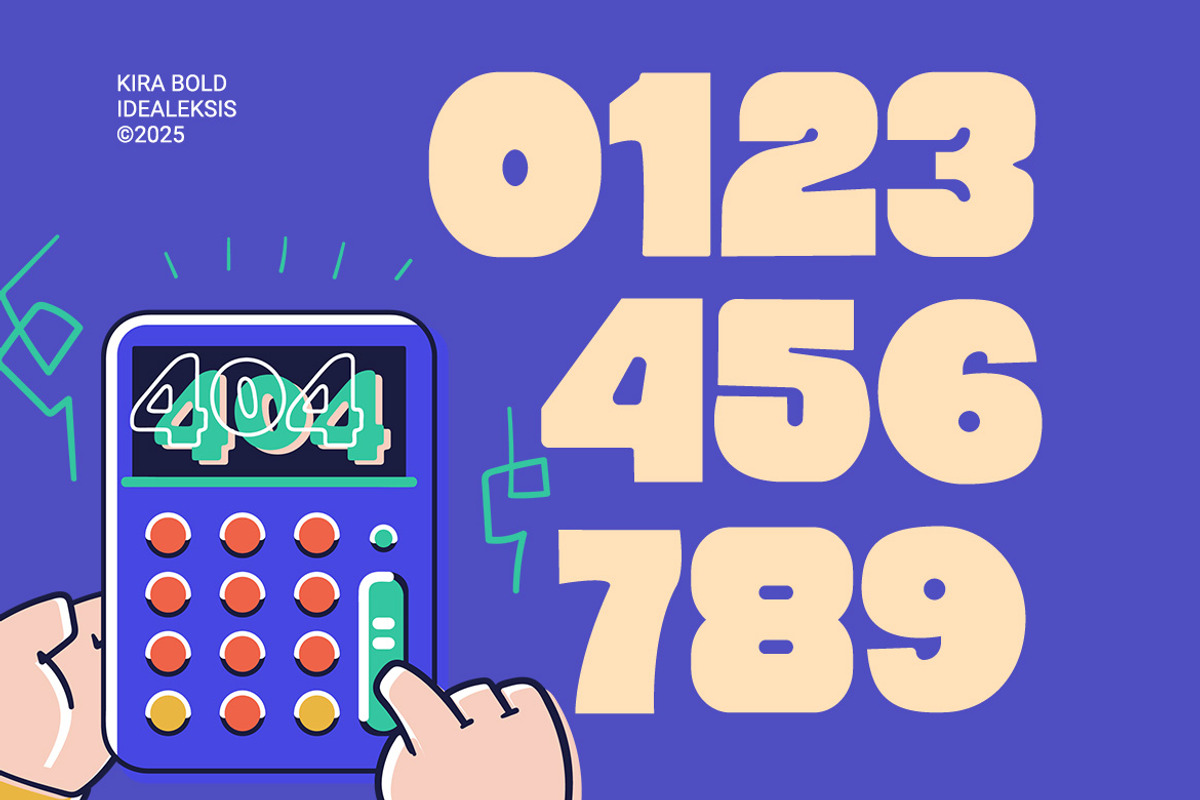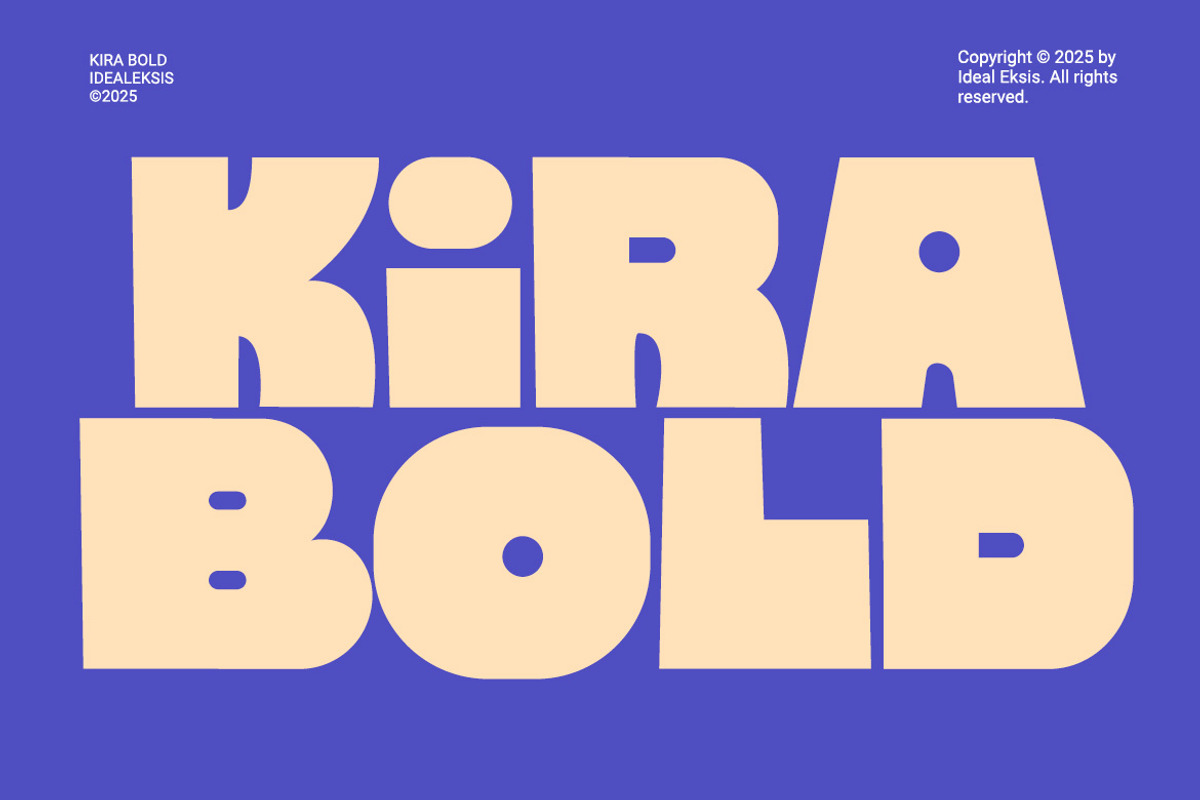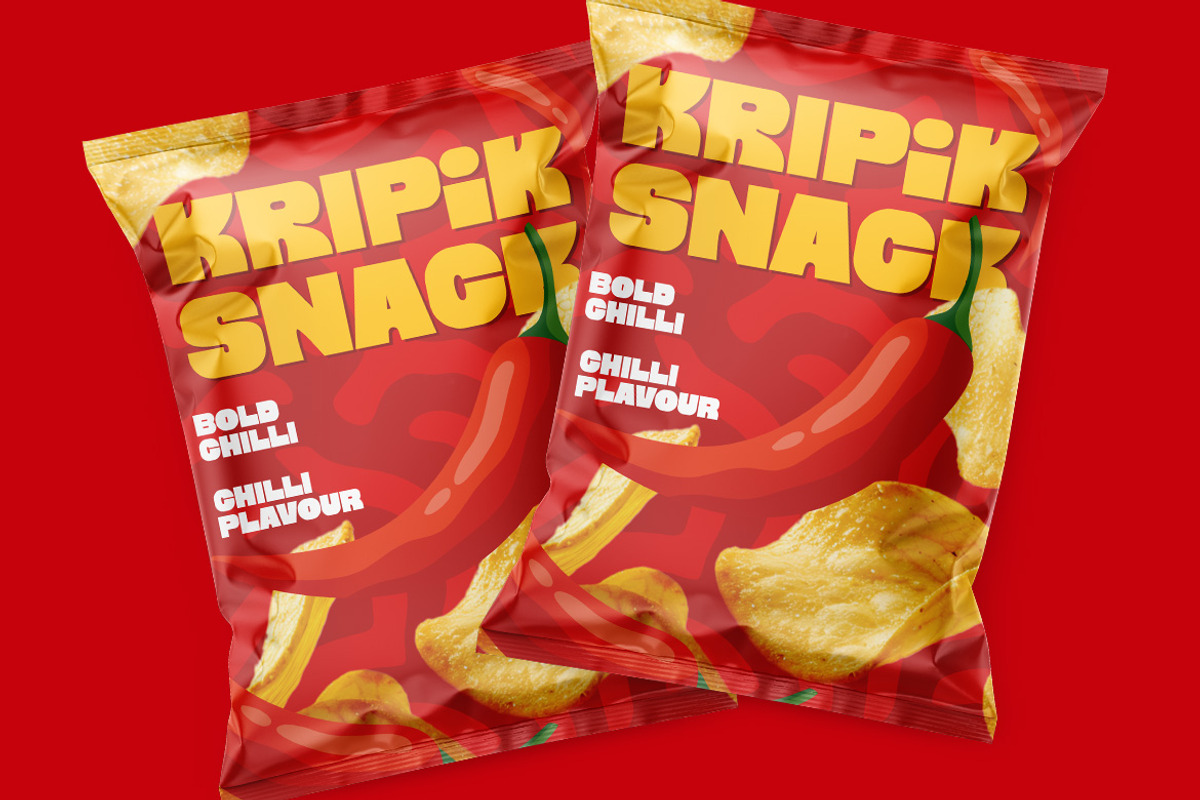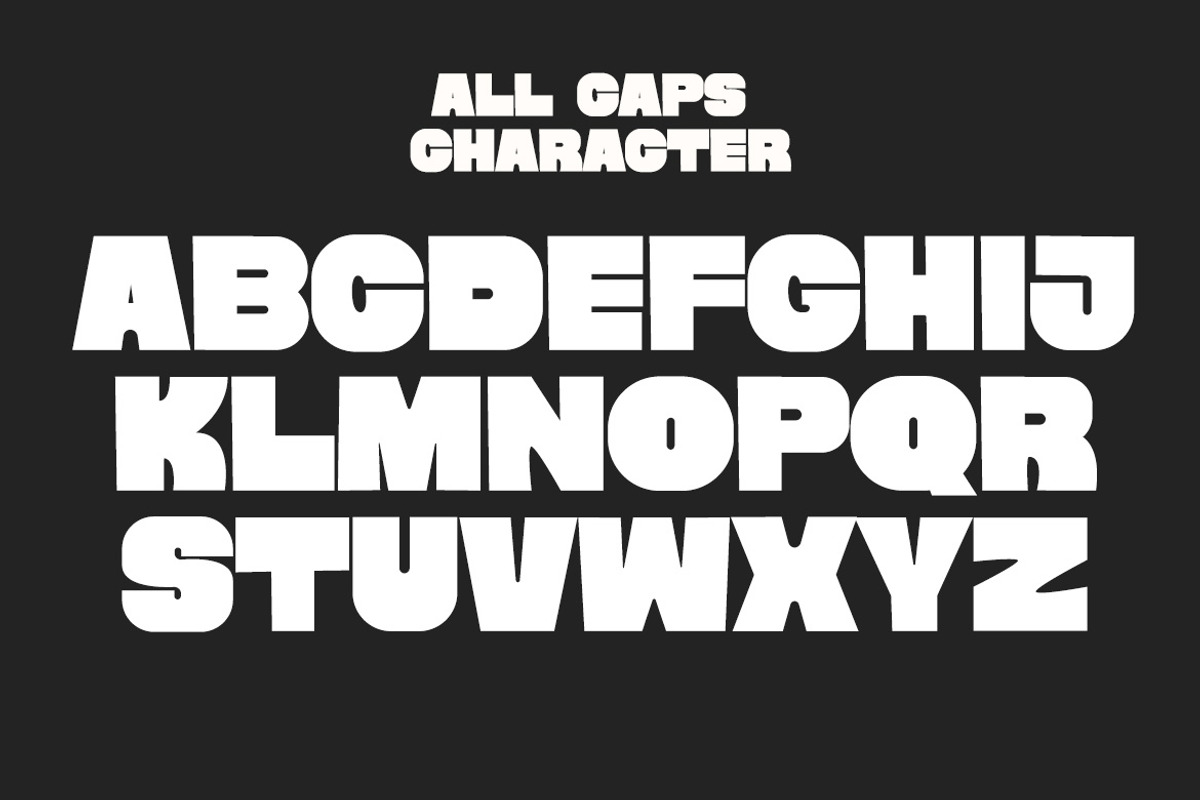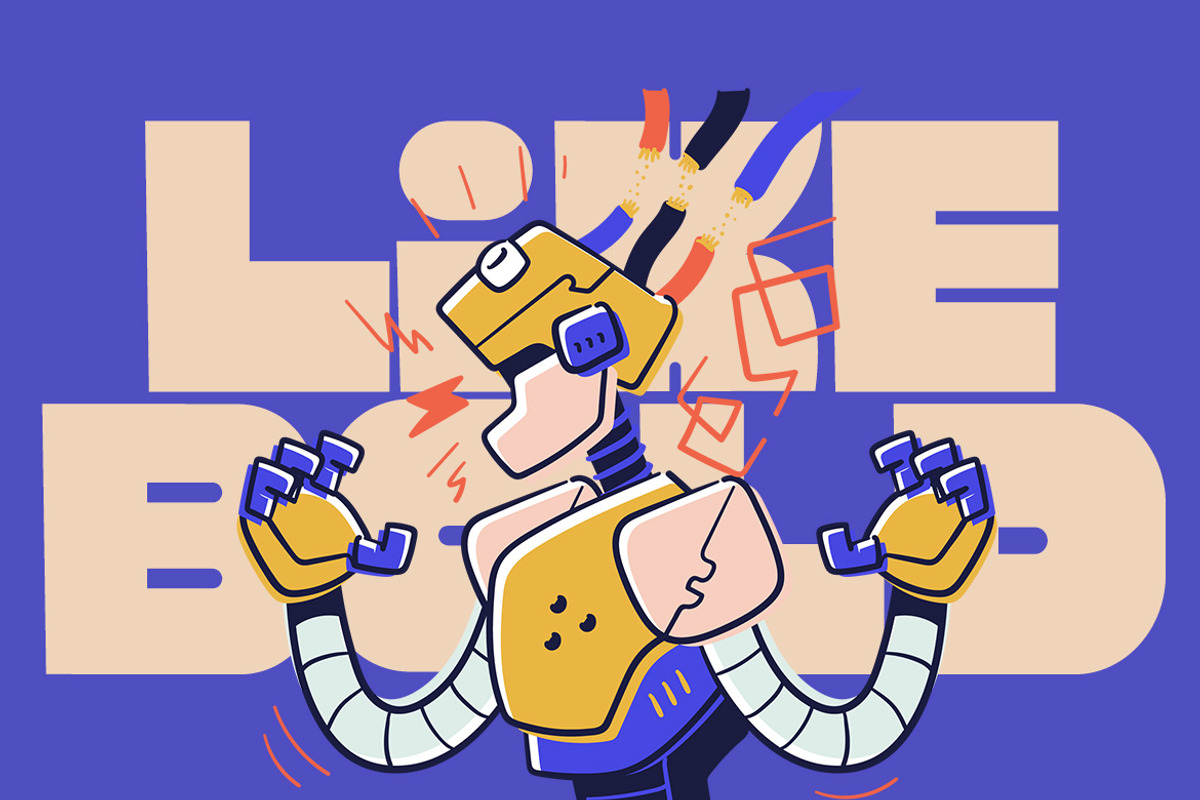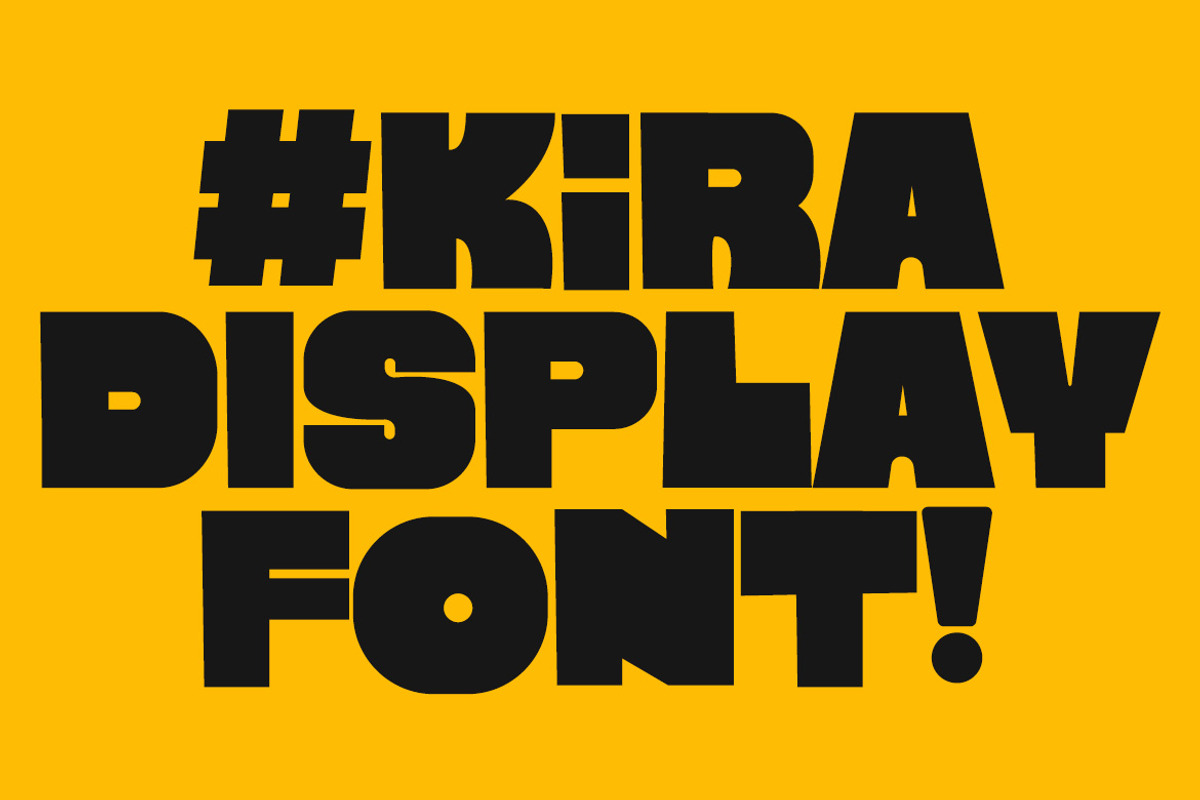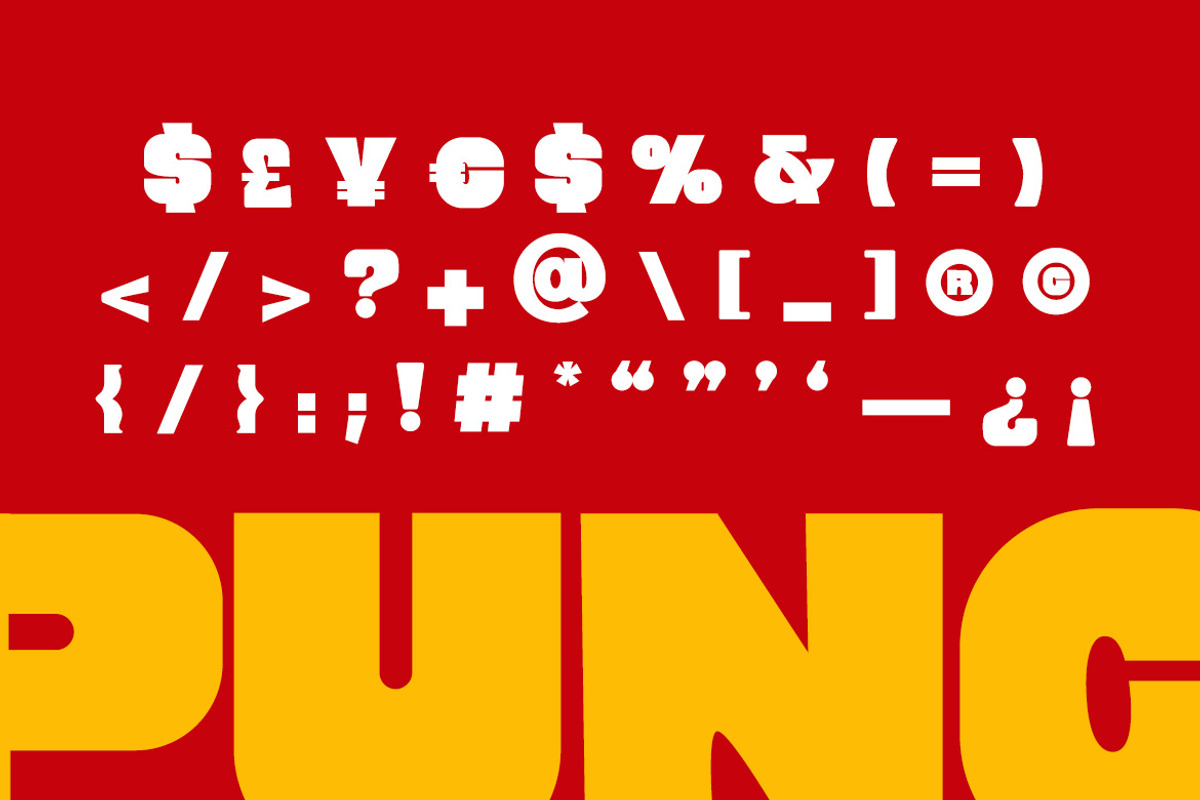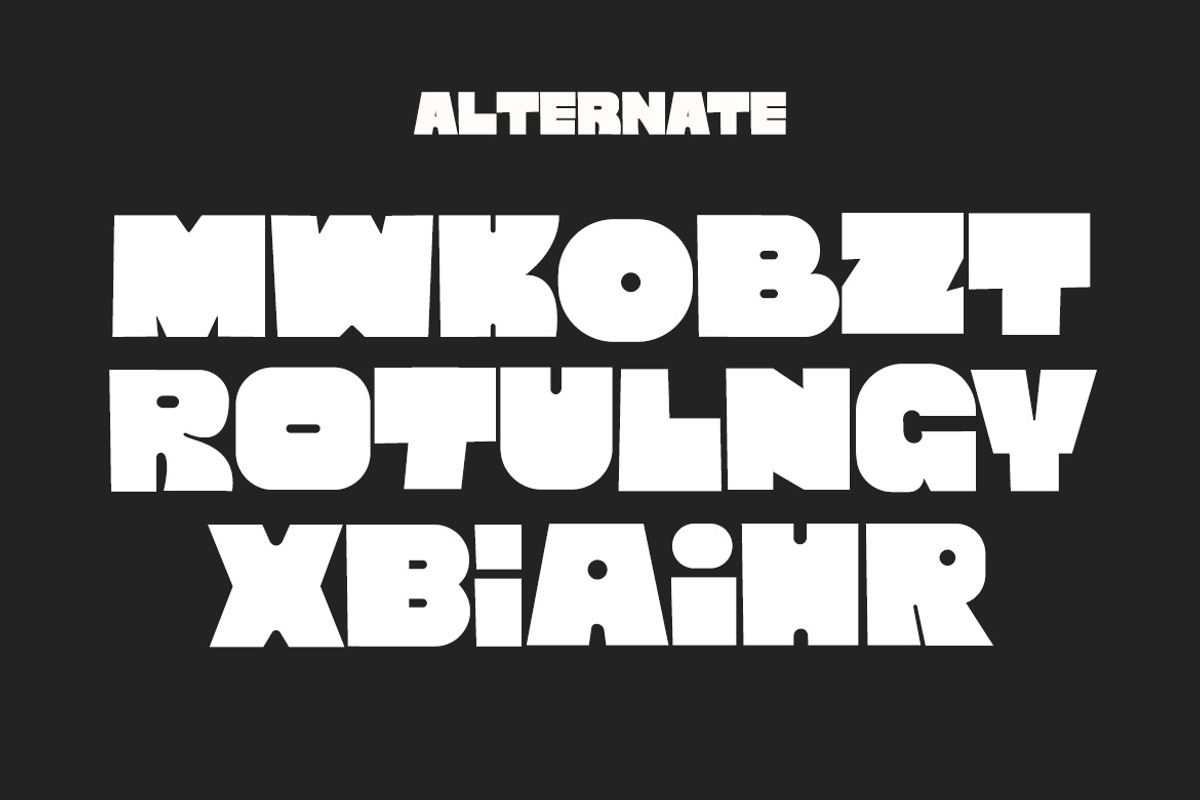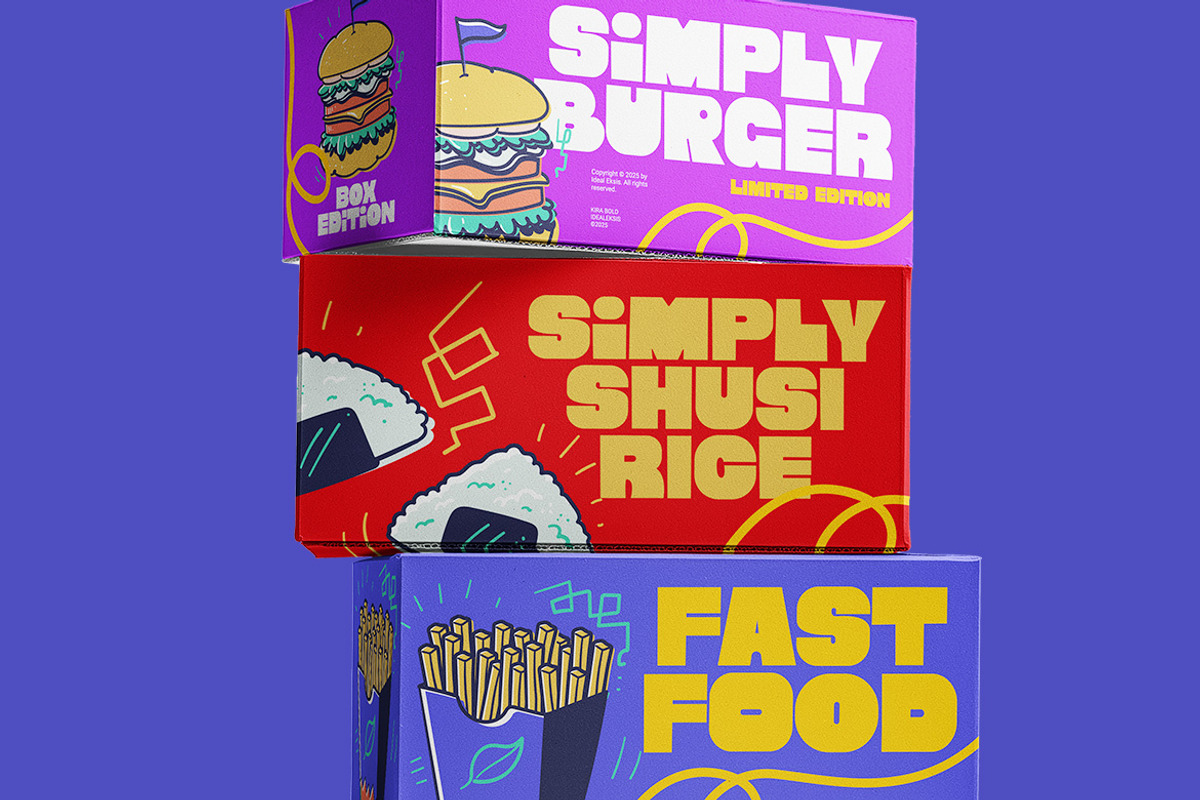
Kira Bold - Sans Serif Font
KIRA BOLD is a chunky, playful, and retro-modern type style designed with heavy shapes and soft rounded cuts that create a friendly and energetic personality. Its bold structure makes it perfect for eye-catching titles, posters, branding, packaging, children’s illustrations, merchandise, and any creative project that needs a fun and powerful visual impact. With its geometric flow and solid construction, KIRA BOLD delivers strong readability while maintaining a unique and memorable character.
Uppercase(All Caps)
Numerals
Alternate